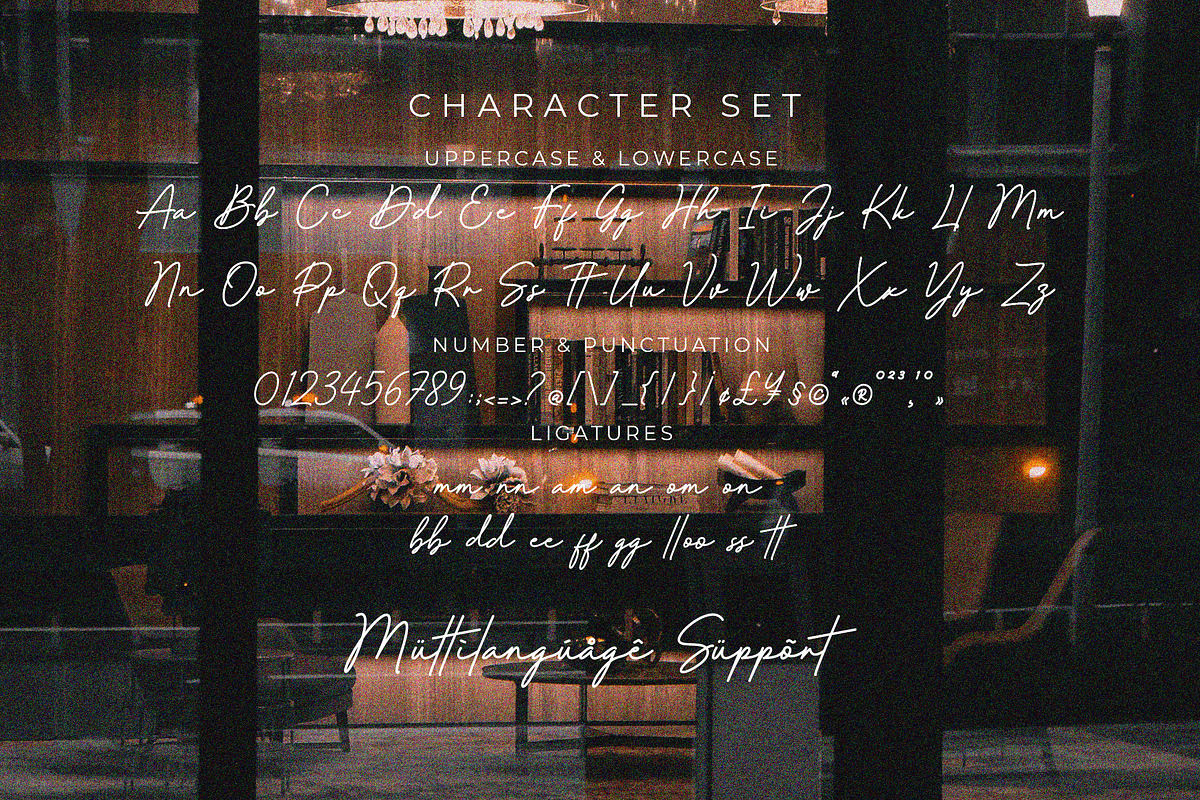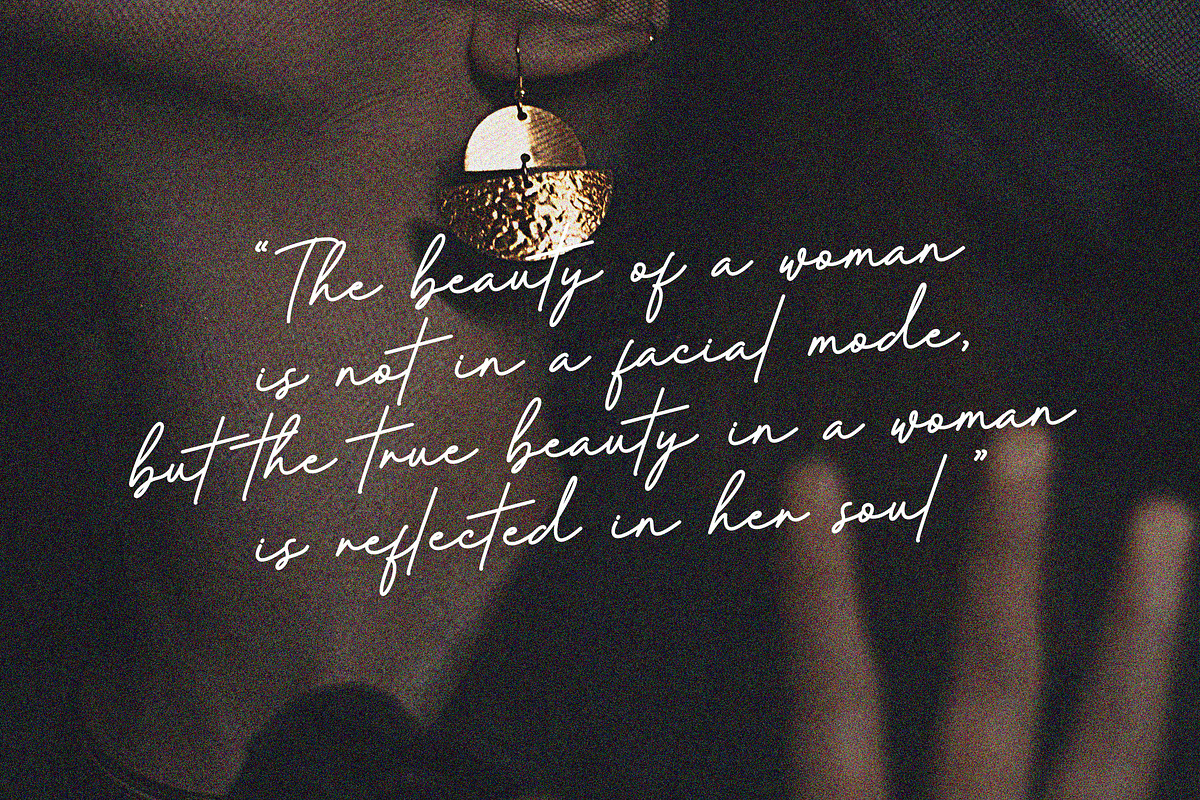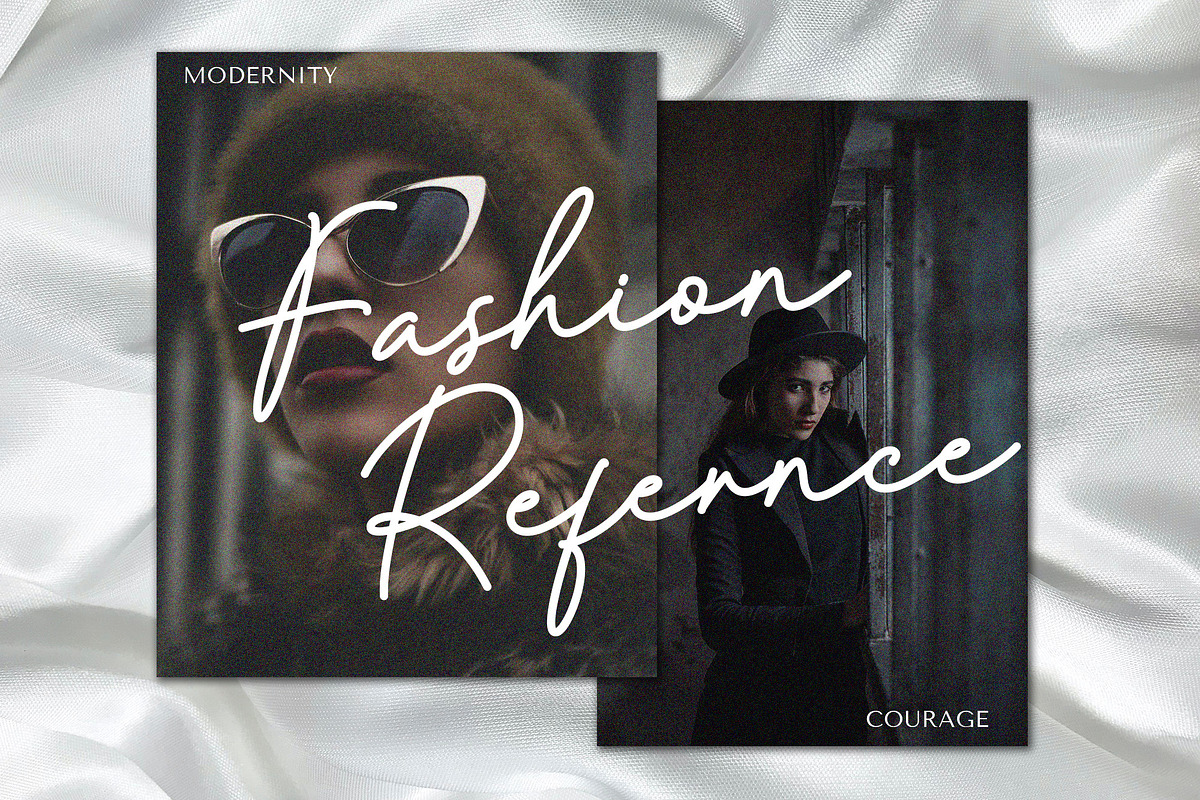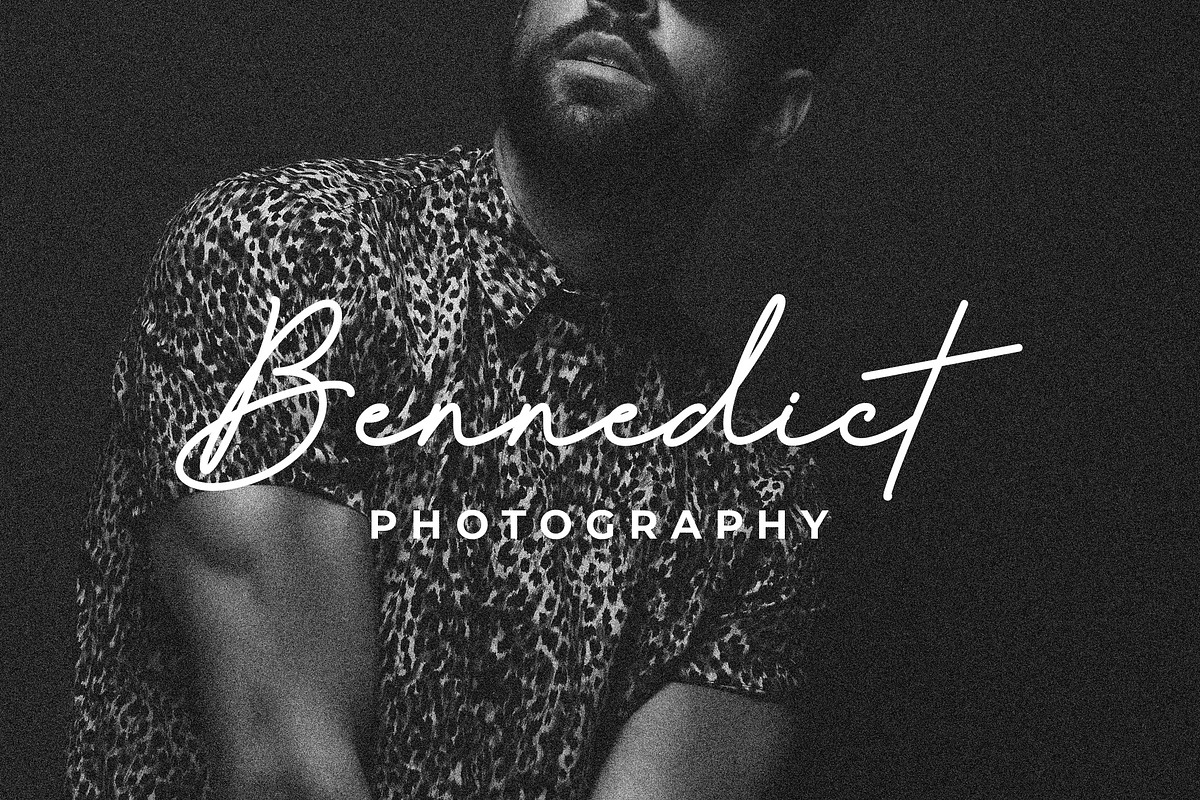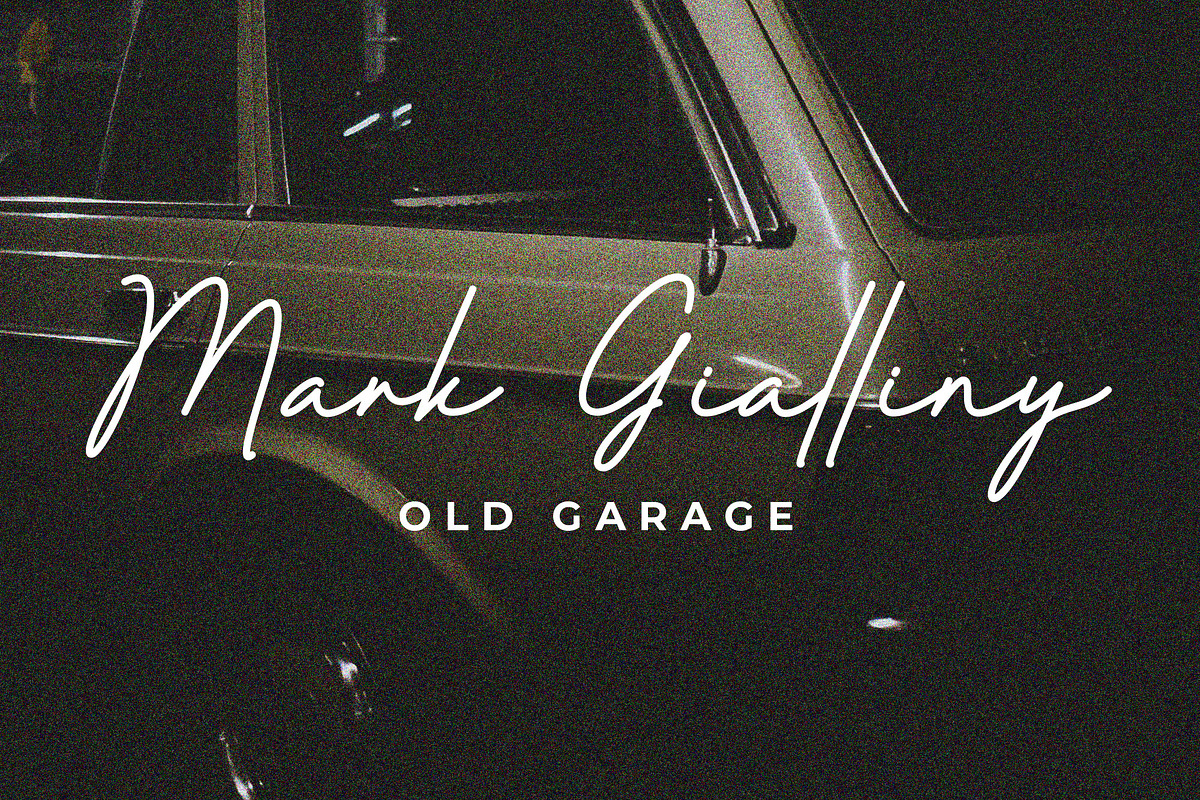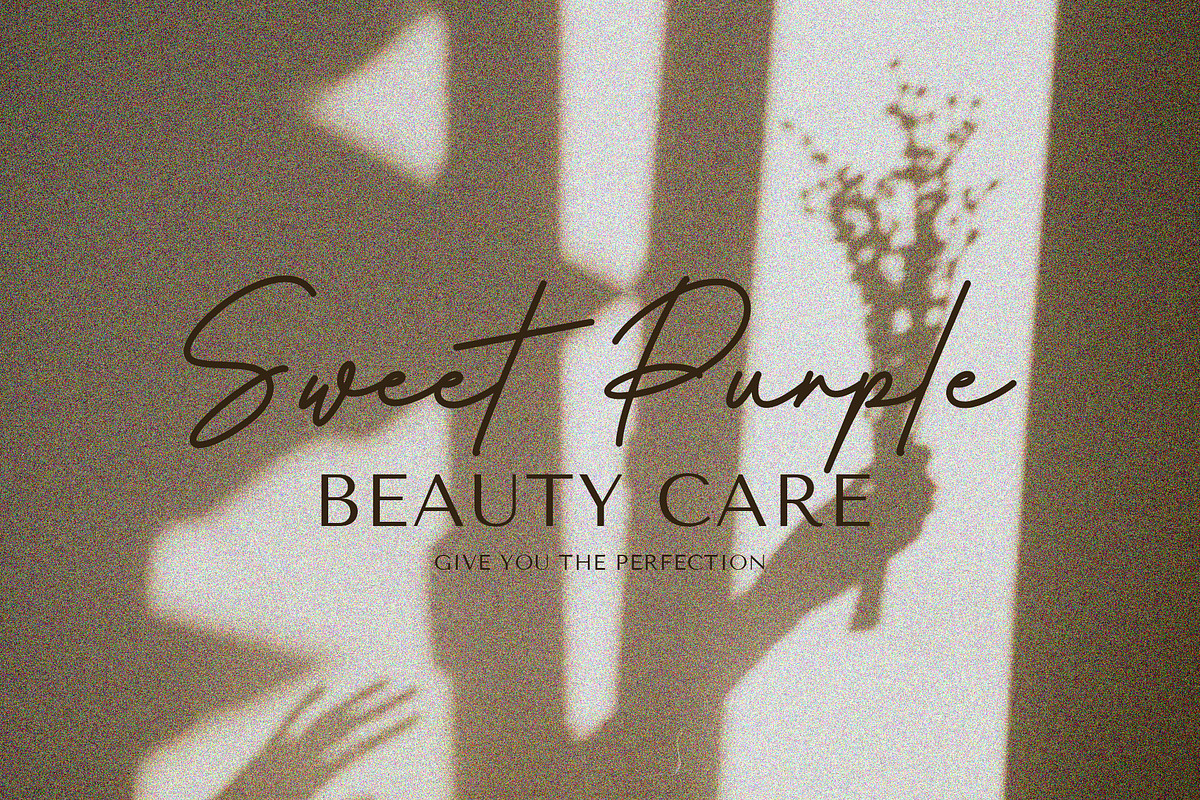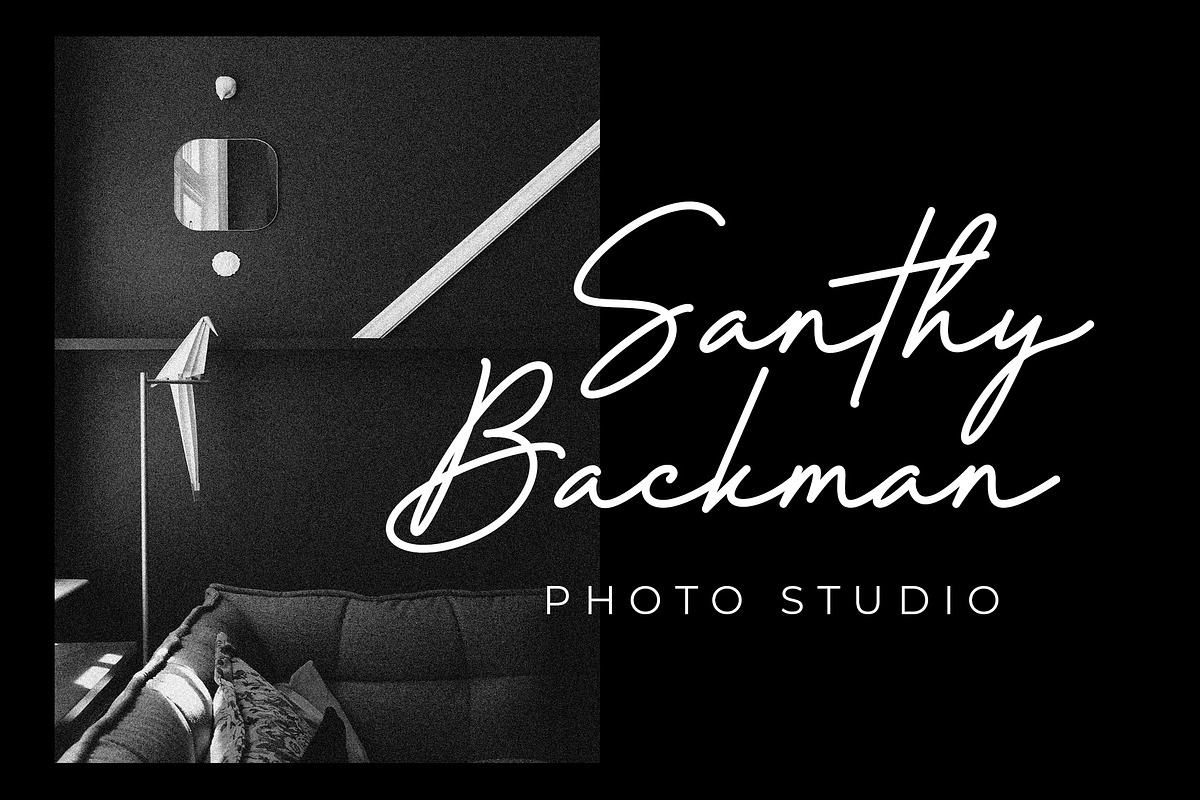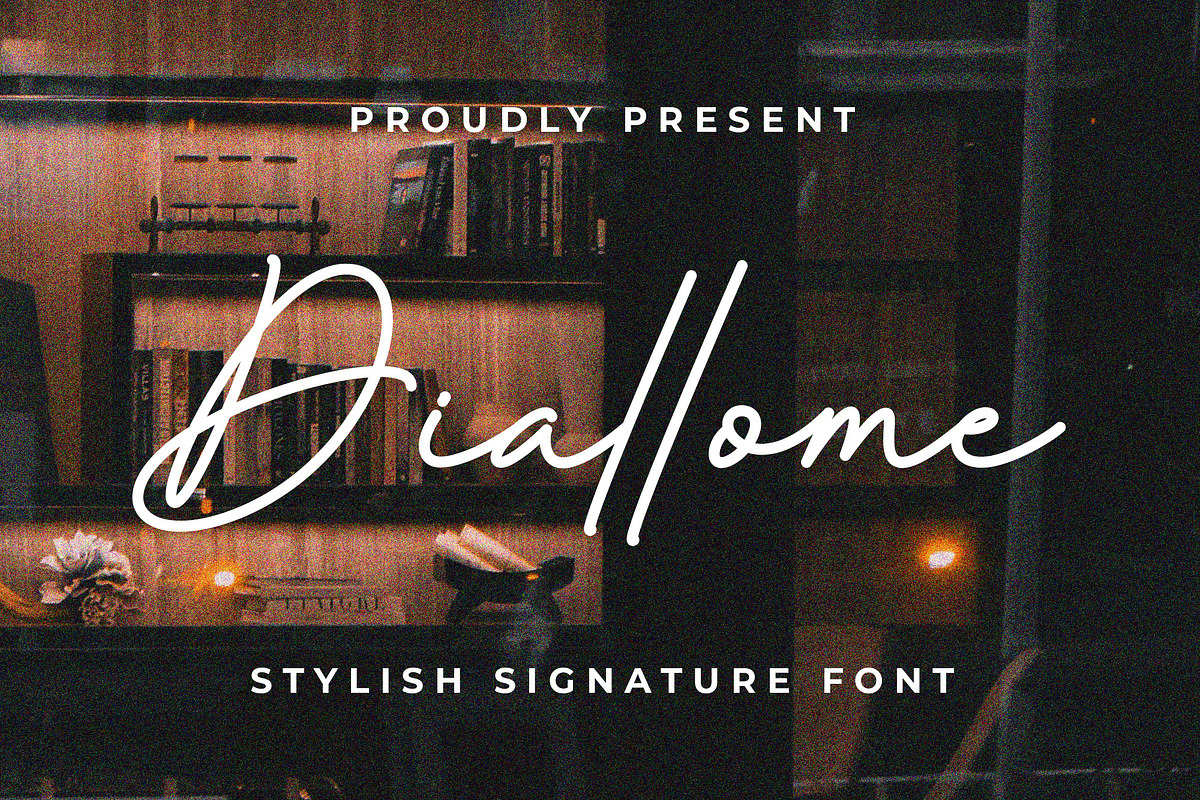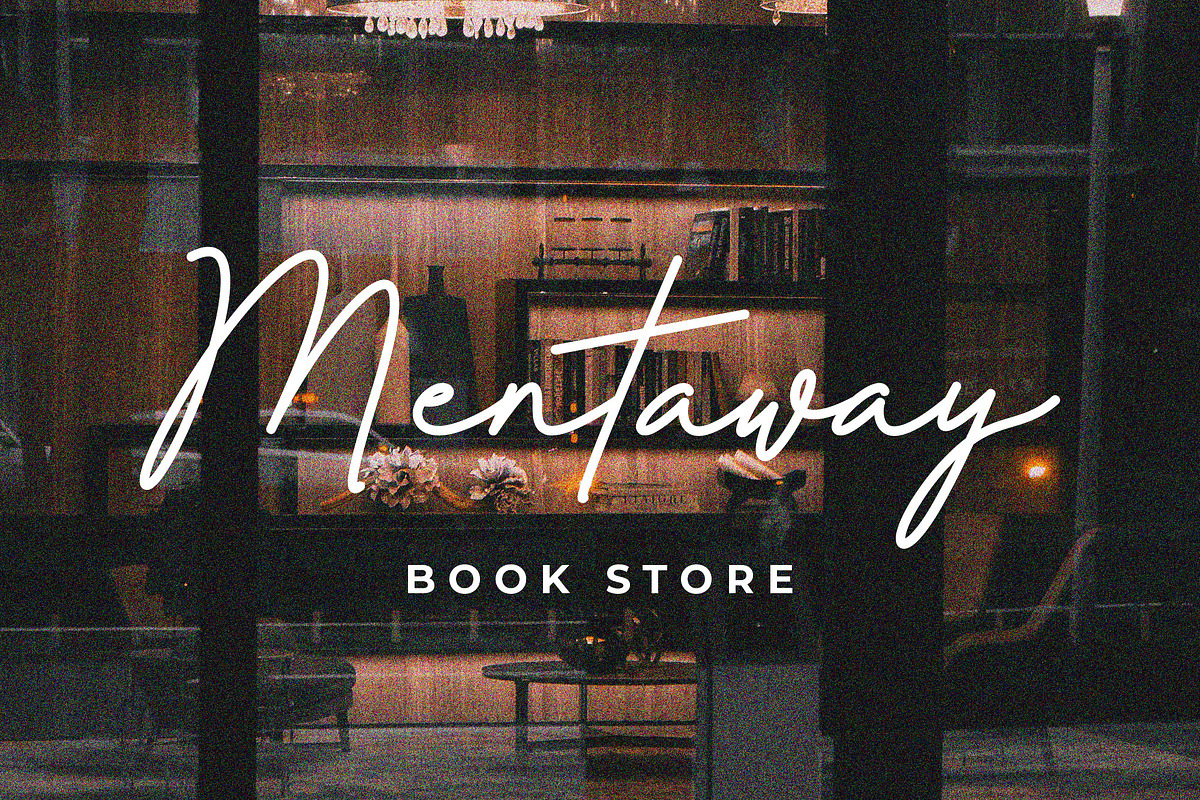
Diallome | Stylish Signature
Diallome is a stylish signature font that has an elegant flow, this font will look very luxurious on wedding invitations, fashion logos, brand logos, thank you cards, business cards, watermarks and any other design that wants to have a handwritten touch.
Diallome Features
- Numerical and Punctuation
- Multilingual Language